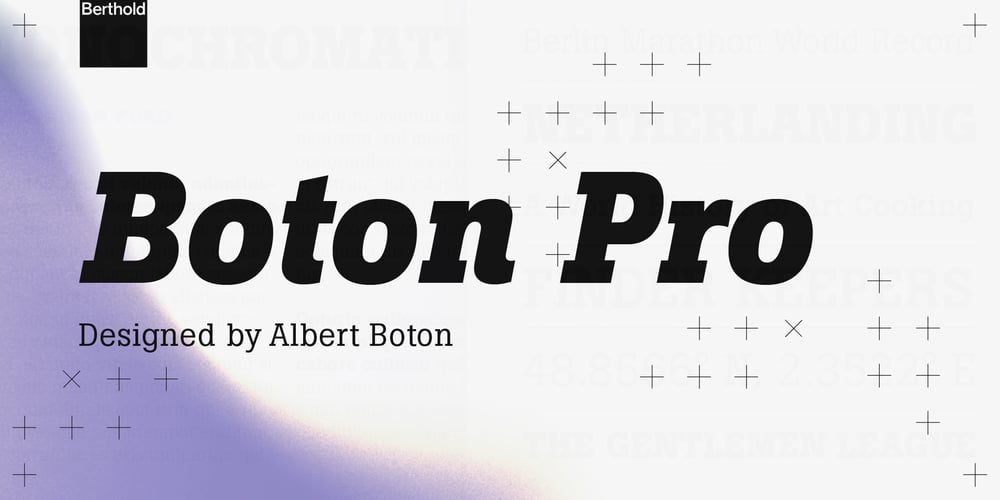
Boton Font Family was designed by Albert Boton and published by Berthold. Boton contains 8 styles and family package options. Designed by Albert Boton of France, H. Berthold released the Boton family in 1986. This design is often used for ad copy, and magazine and web layouts. The heavier weights of Boton are useful when setting attention-grabbing headlines.